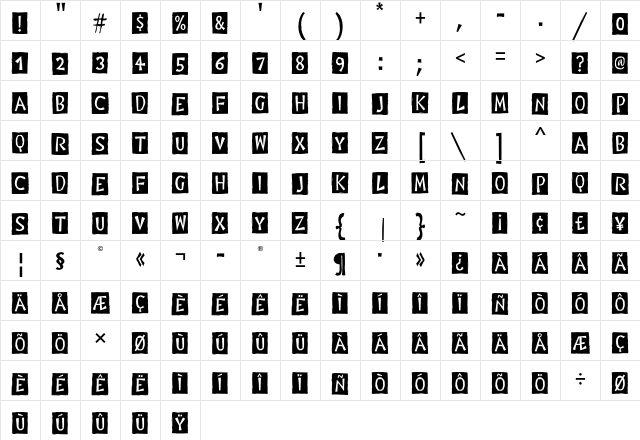
Complete Digital Woodcuts ITC Std Black glyph index. Displaying only characters natively supported by Digital Woodcuts ITC Std Black font.
Digital Woodcuts ITC Std echoes the hand-painted signage and woodblock typography of the American frontier, with a warm, rugged personality.
Font Pairing: Combine Digital Woodcuts ITC Std with a simple slab or neutral sans - period-accurate companions reinforce the vintage feel without competing for attention.
Pro Tip: Use Digital Woodcuts ITC Std for short, impactful bursts of text - it shines in poster headlines and product names rather than extended copy.